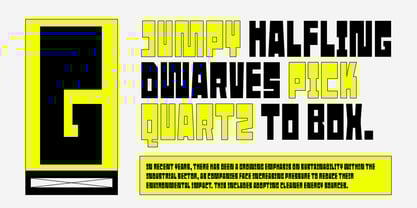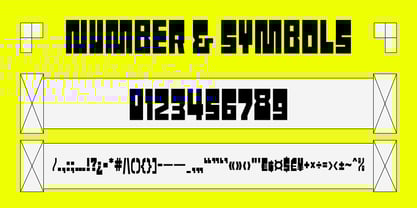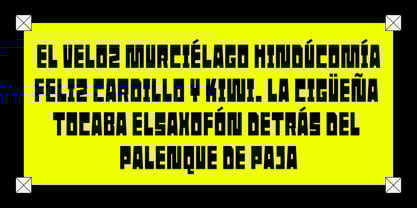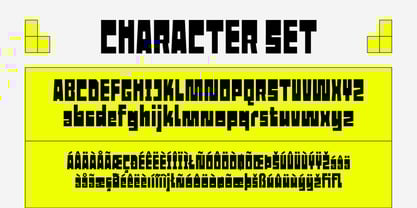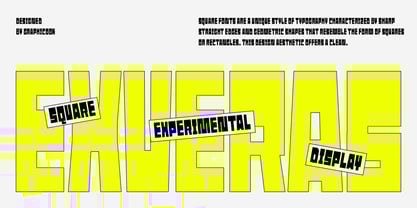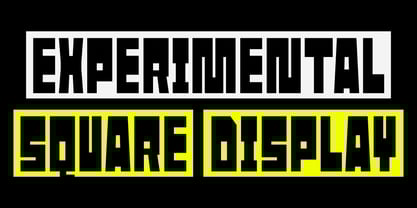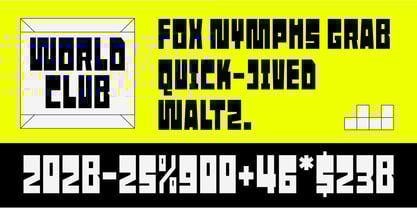
Cook Exveras
by Graphicook Studio
The Cook Exveras Font Family was designed by Gumilar Febriansyah and published by Graphicook Studio. Cook Exveras contains 1 styles. More about this family
Exveras is an experimental font featuring boxy, geometric shapes that create a futuristic look. Ideal for technology branding, games, posters, and logos, it perfectly complements modern, brutalist, or cyberpunk design styles. It is perfect for headlines, logotypes, magazines, packaging, quotes, movies, games, cover albums, book covers, and flyers, it's a perfect solution for creating eye-catching designs that stand out in any context.
Designers: Gumilar Febriansyah
Foundry: Graphicook Studio